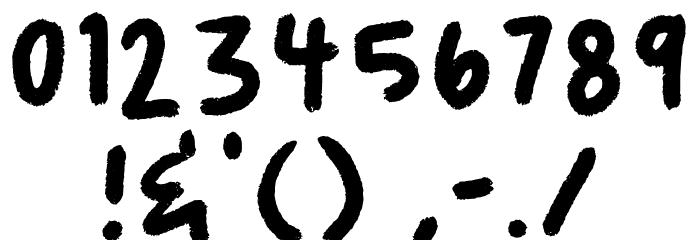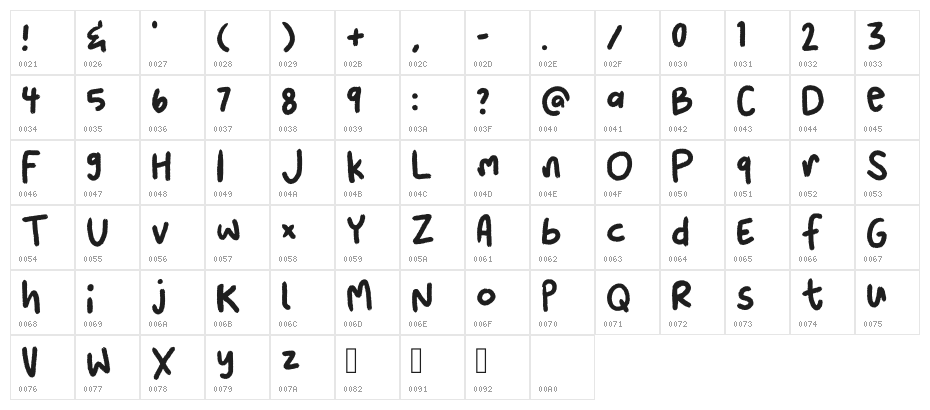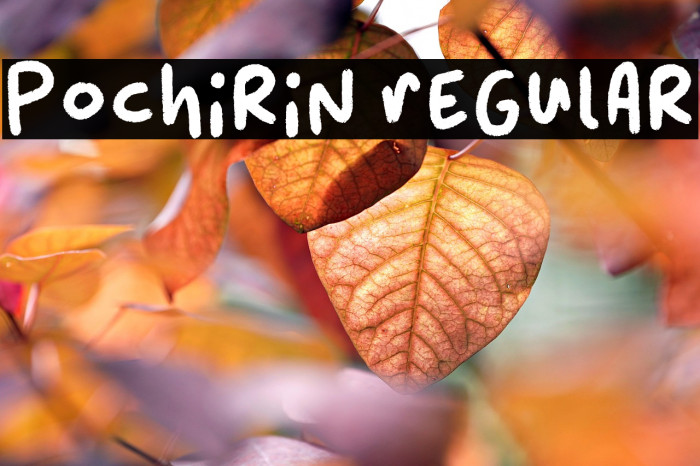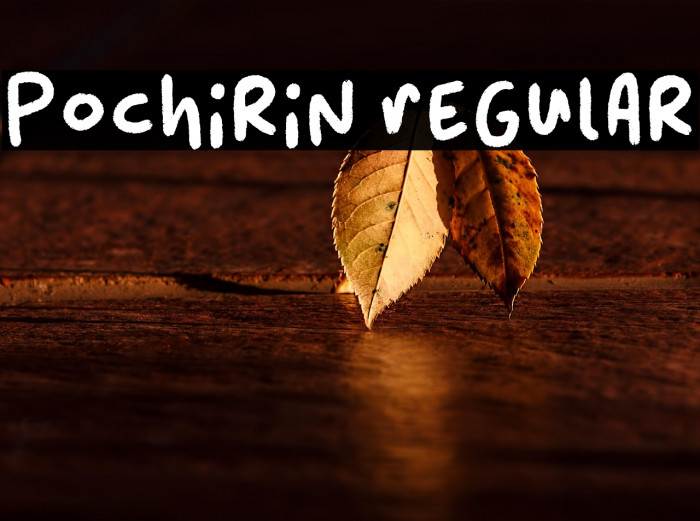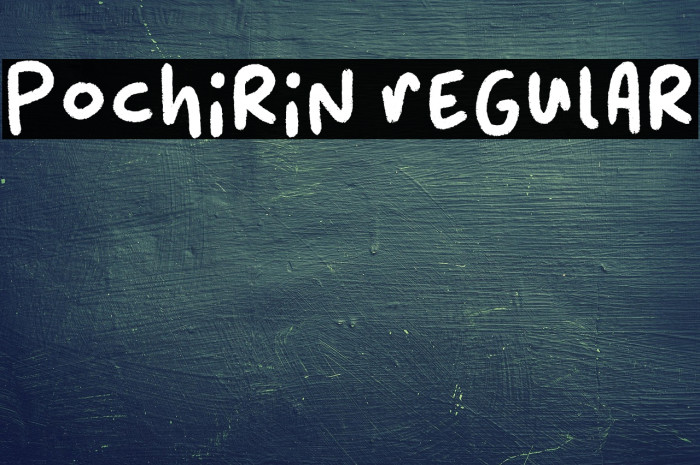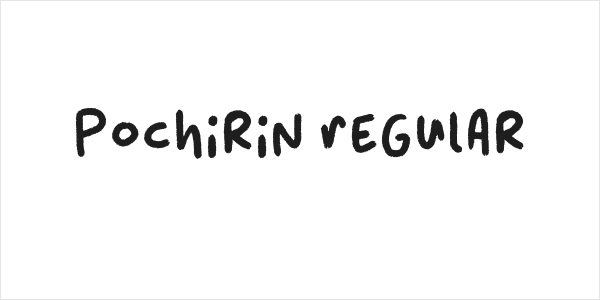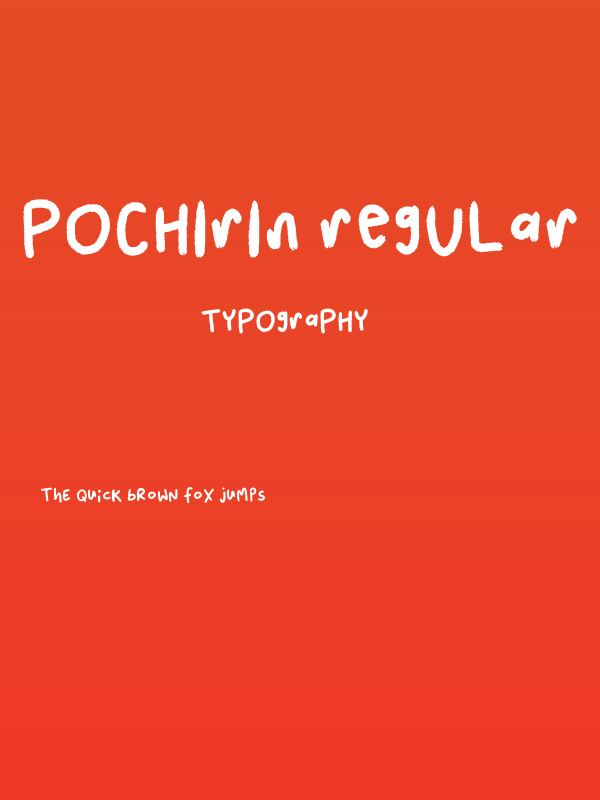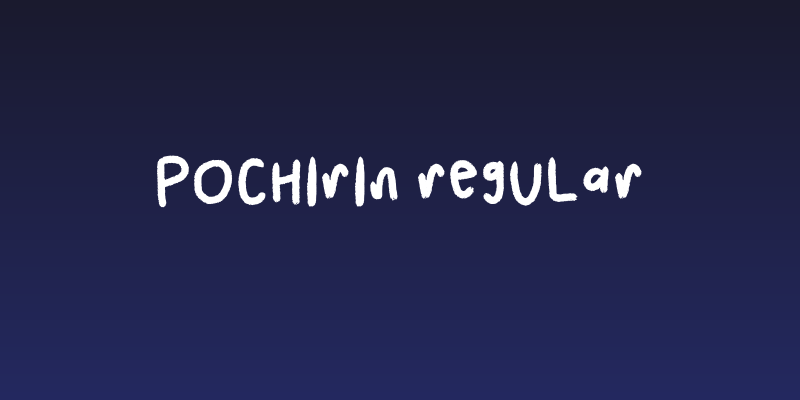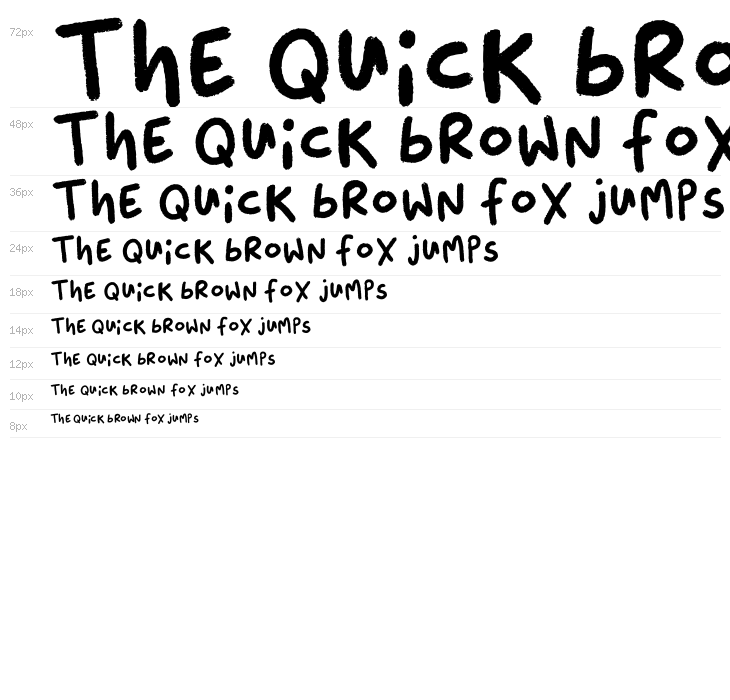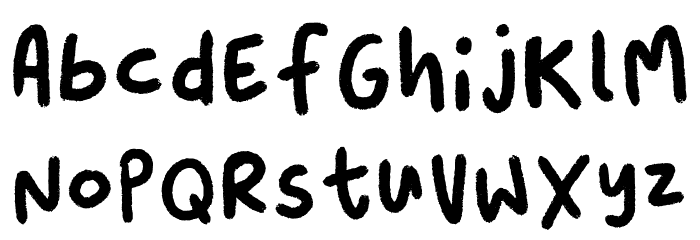
Pochirin Regular Font
This font features a playful and informal handwritten style, characterized by its bold and rounded letterforms. The strokes are thick and consistent, giving it a strong presence on the page. Each character has a slightly uneven baseline, adding to its casual and friendly appearance. The font includes both uppercase and lowercase letters, numerals, and a variety of special characters, making it versatile for different uses. Its organic and approachable design makes it suitable for projects that require a personal touch.
A bold, playful handwritten font with rounded, consistent strokes.
• Proposed Projects: Ideal for children's books, greeting cards, casual branding, and social media graphics.
• Category: Handwritten
• Overall Style: Casual, Playful
• Use Case: Headlines, Logos, Informal Text